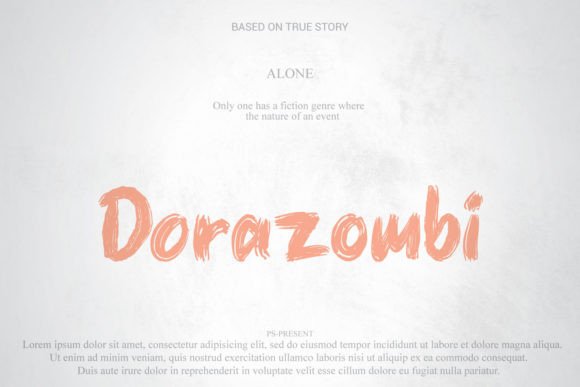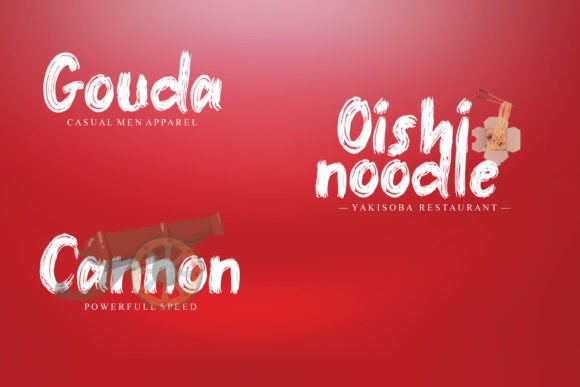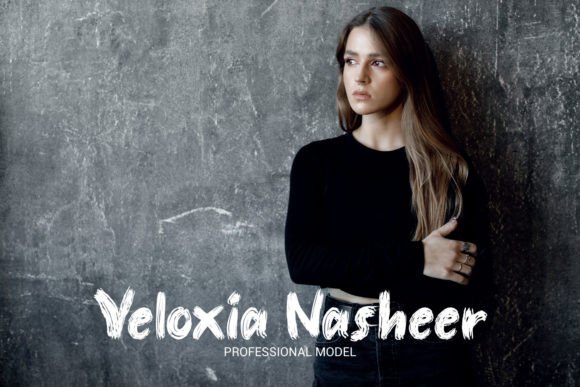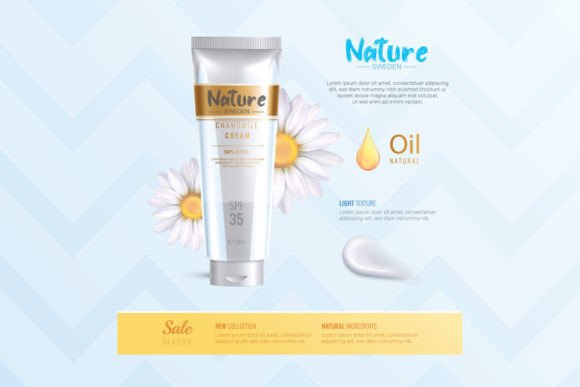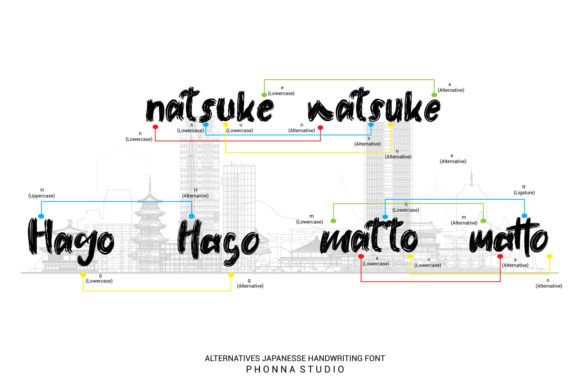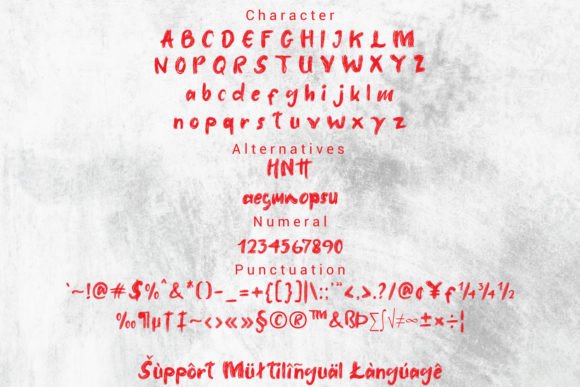
Hanasobi Font: The Perfect Japanese Bold Handwritten Font for Your Projects
In the world of typography, fonts play a crucial role in conveying the tone and personality of a brand or design. For designers and crafters looking for a unique and versatile font, Hanasobi is an excellent choice. This Japanese bold handwritten font has gained popularity for its beautiful and readable design, making it perfect for various projects.
What is Hanasobi Font?
Hanasobi is a Japanese bold handwritten font created with the best brushes to achieve a traditional and authentic look. The font’s name “Hanasobi” is derived from Japanese words, reflecting its cultural heritage. The font’s design is characterized by its bold and expressive strokes, making it stand out from other fonts.
Key Features of Hanasobi Font
- Bold and Expressive Design: Hanasobi font features bold and expressive strokes, giving it a unique and eye-catching appearance.
- Handwritten Style: The font’s handwritten style adds a personal touch to any design, making it perfect for projects that require a human touch.
- Readability: Despite its bold design, Hanasobi font is highly readable, making it suitable for body text and headings.
- Versatility: The font’s versatility makes it perfect for various projects, from branding and advertising to packaging and digital media.
Why Choose Hanasobi Font?
There are several reasons why designers and crafters choose Hanasobi font for their projects:
- Uniqueness: Hanasobi font’s bold and expressive design sets it apart from other fonts, making it perfect for designers looking for a unique font.
- Cultural Significance: The font’s Japanese heritage adds a cultural significance to any design, making it perfect for projects that require a touch of Japanese culture.
- Ease of Use: Hanasobi font is easy to use and works well with various design software, making it a convenient choice for designers.
Use Cases for Hanasobi Font
Hanasobi font is perfect for various projects, including:
- Branding and Advertising: The font’s bold and expressive design makes it perfect for branding and advertising projects that require a unique and eye-catching font.
- Packaging Design: Hanasobi font’s versatility makes it suitable for packaging design, adding a personal touch to product labels and packaging.
- Digital Media: The font’s readability and bold design make it perfect for digital media, including social media graphics, blog posts, and website headers.
- Crafting and DIY Projects: Hanasobi font is also perfect for crafting and DIY projects, such as handmade cards, gift tags, and paper crafts.
Tips for Using Hanasobi Font
Here are some tips for using Hanasobi font effectively:
- Pair with Simple Fonts: Pair Hanasobi font with simple fonts to create a balanced design and avoid visual overload.
- Use for Headings and Titles: Use Hanasobi font for headings and titles to add a bold and expressive touch to your design.
- Experiment with Colors: Experiment with different colors to find the perfect match for your design and make the most of Hanasobi font’s bold design.
In conclusion, Hanasobi font is a unique and versatile Japanese bold handwritten font that is perfect for various projects. Its bold and expressive design, readability, and cultural significance make it a popular choice among designers and crafters. With its ease of use and versatility, Hanasobi font is an excellent addition to any design project.
Whether you’re a designer, crafter, or simply someone looking for a unique font, Hanasobi is definitely worth considering. So, go ahead and explore the world of Hanasobi font, and discover the endless possibilities it has to offer!